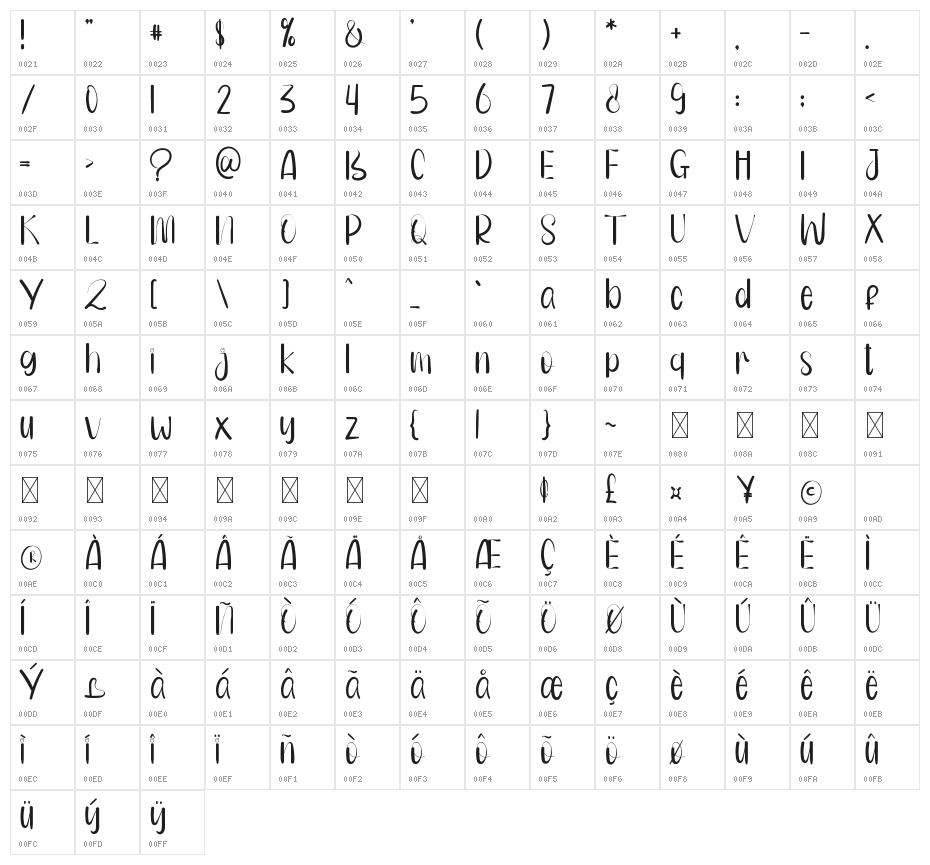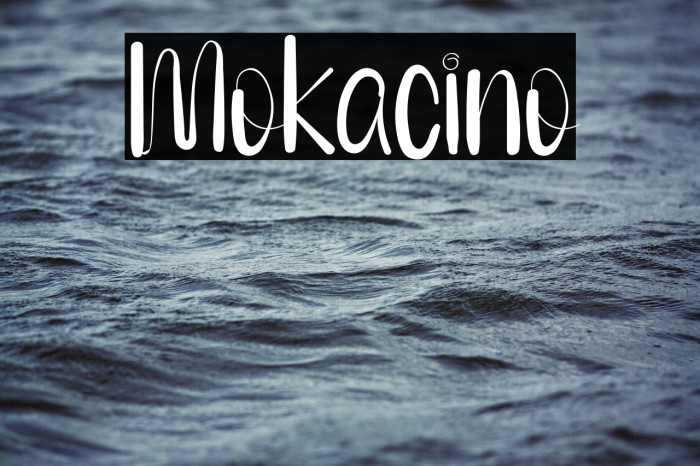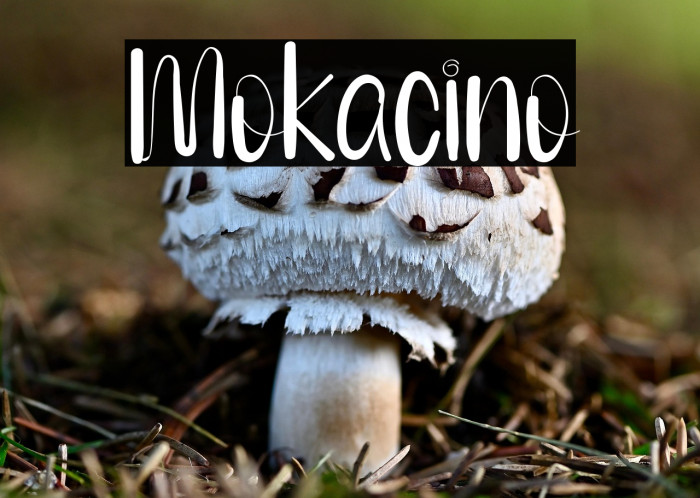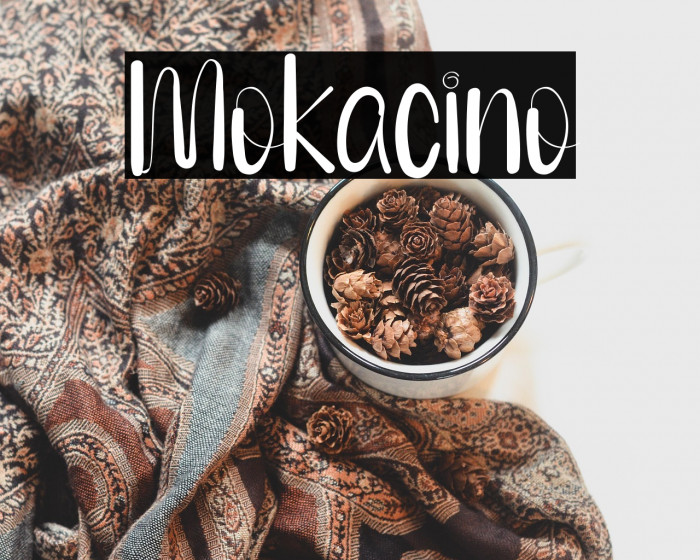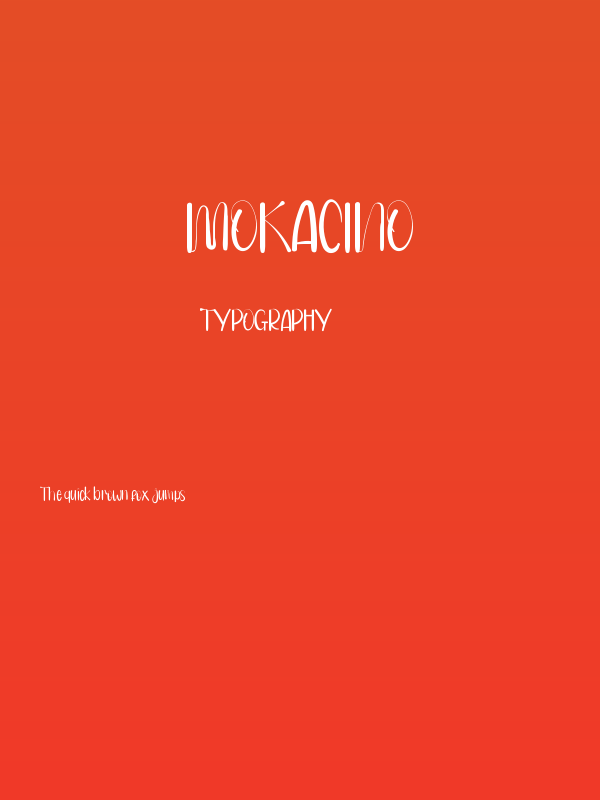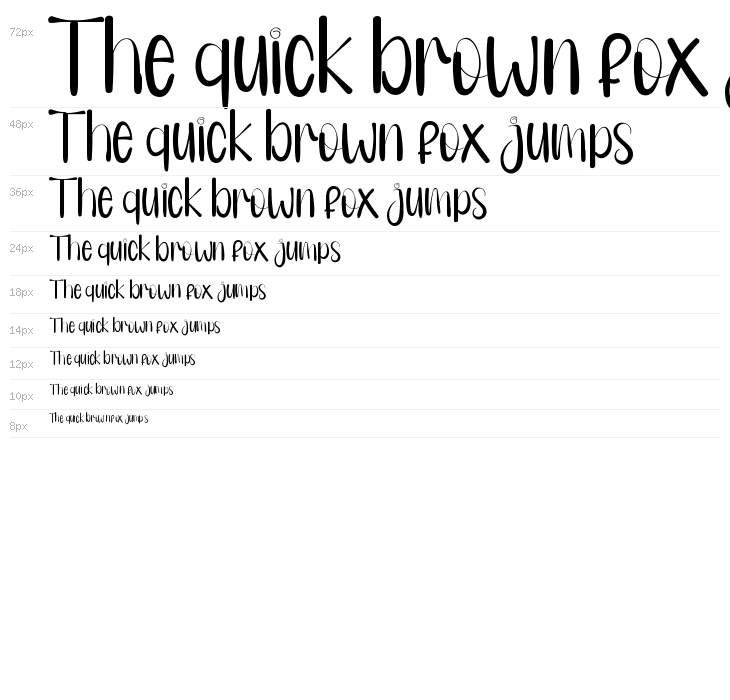
Mokacino Font
Mokacino Description
This playful and energetic font features a handwritten style with a modern twist. The characters are tall and narrow, with a mix of thick and thin strokes that create a dynamic visual rhythm. The uppercase letters are bold and confident, while the lowercase letters maintain a friendly and approachable feel. Numbers and special characters are crafted with the same lively spirit, ensuring consistency throughout. The font's unique personality makes it stand out, perfect for projects that require a touch of creativity and flair.